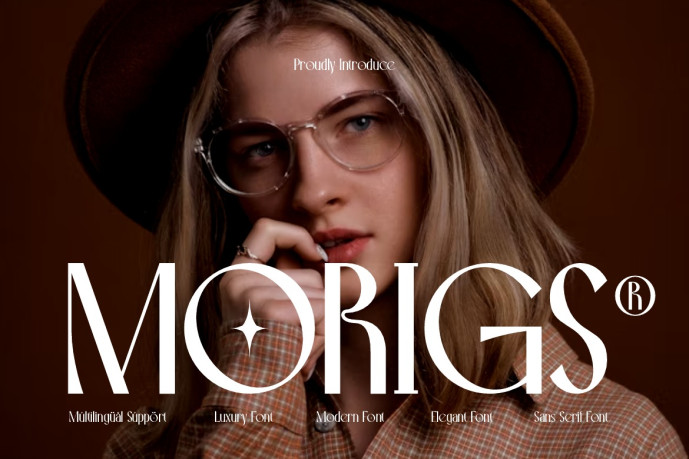
Morigs Font
Designer: IQSIART STUDIO
Elevate your typography with MORIGS, a sophisticated modern display font designed to exude high-end luxury and effortless chic style! Featuring sleek, high-contrast stems paired with unique curved flourishes and flowing geometric letterforms, this typeface brings an exquisite editorial feel to any design.
Whether you’re crafting high-fashion magazine headers, luxury beauty branding, chic logo marks, boutique packaging, or stylish social media quotes, MORIGS adds a graceful, high-class touch that elevates your brand identity.